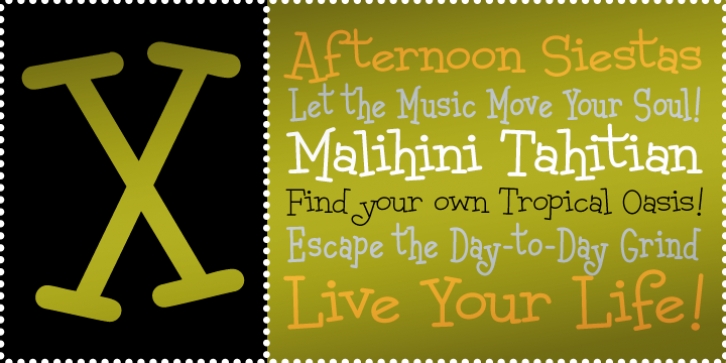
Malihini Tahitian BTN was designed by Stuart Sandler and published by Breaking the Norm. Malihini Tahitian BTN contains 5 styles and family package options.
Malihini Tahitian is a playful, exotic typeface for any island visitor.
Malihini literally means foreign visitor, but there is nothing foreign about this fun family!
The Tahitian weight offers a more relaxed feel to this versatile family!
Unlike Malihini Cuban, the Tahitian version has a round look.